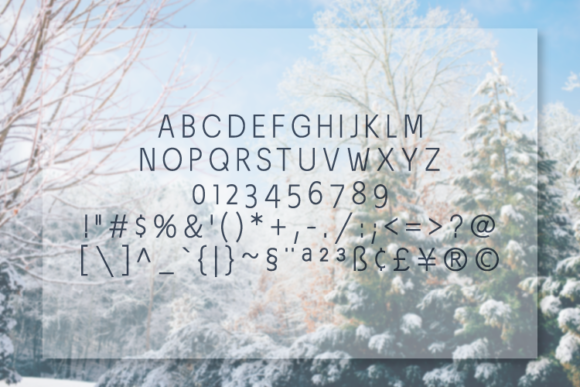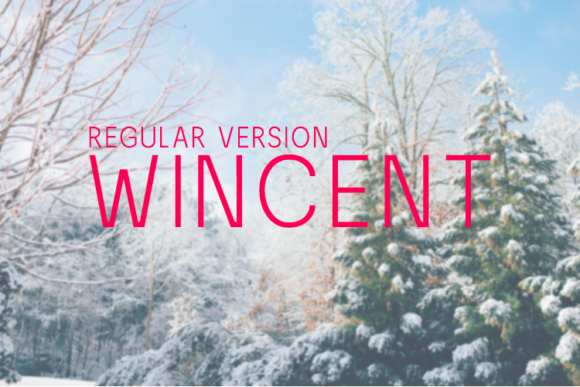
Wincent is a geometric font family with an incredibly simple and elegant style. It features soft terminals and will give any design project a friendly and expressive look!